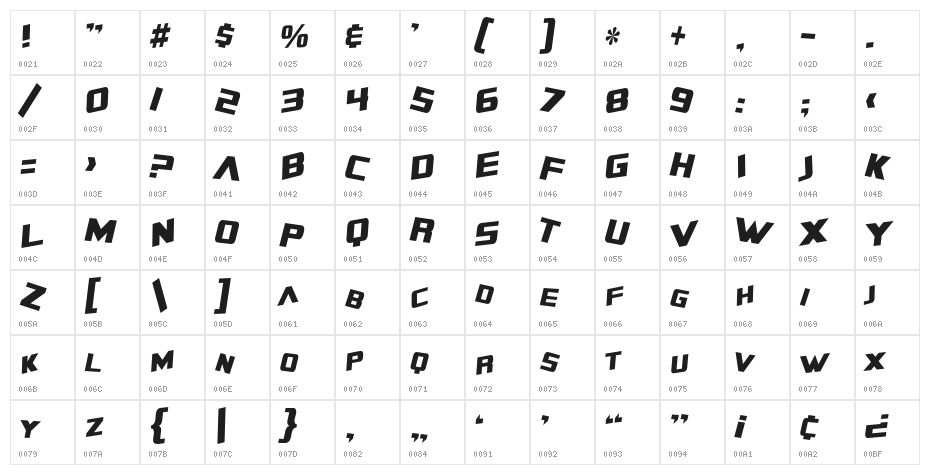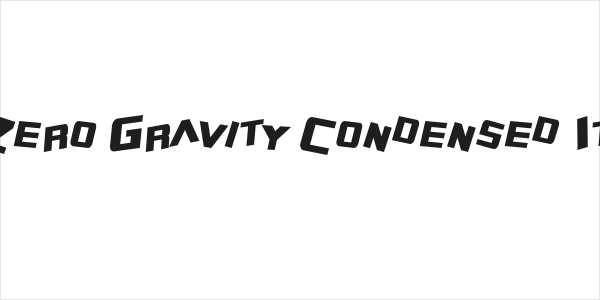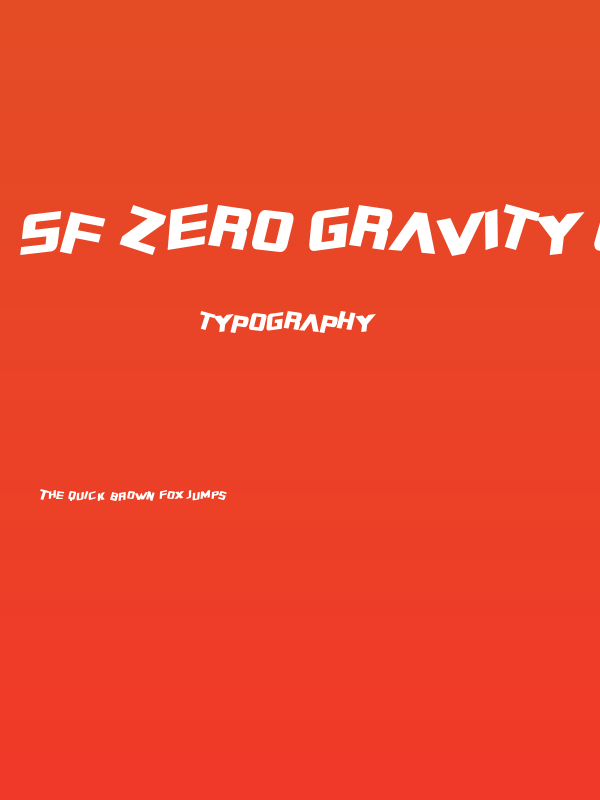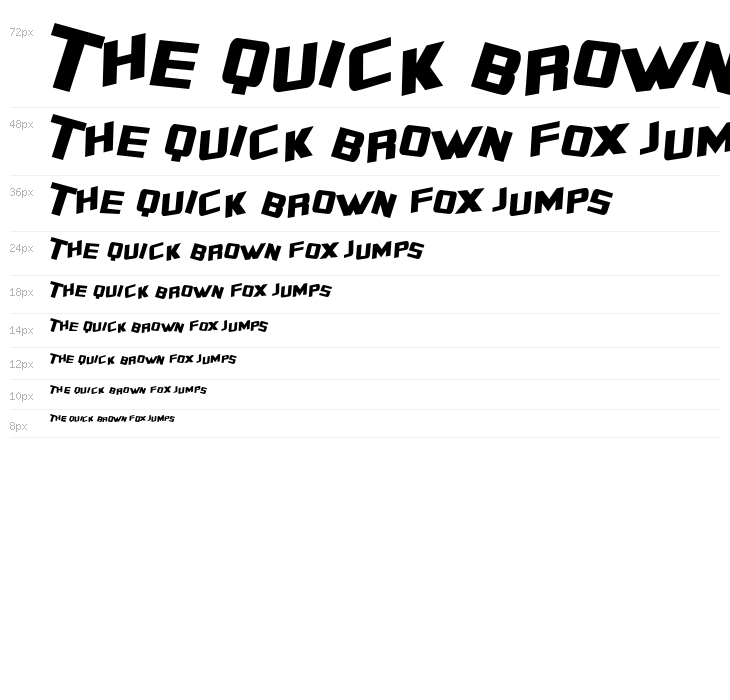
SF Zero Gravity Condensed Italic Font
SF Zero Gravity Condensed Italic Description
This font features a dynamic and futuristic design with a condensed and italicized style. The characters are bold and angular, giving a sense of movement and energy. The sharp edges and slanted orientation contribute to a modern and edgy appearance, making it suitable for projects that require a strong visual impact. The font maintains consistent stroke thickness, providing a uniform look across all characters. Its condensed nature allows for efficient use of space, making it ideal for headlines or titles where space is limited.
| Proposed Projects | Ideal for sci-fi themed designs, video game titles, technology branding, and dynamic posters. |